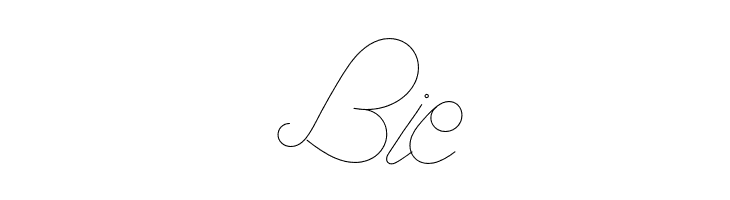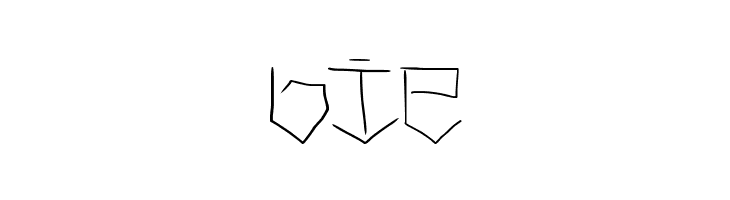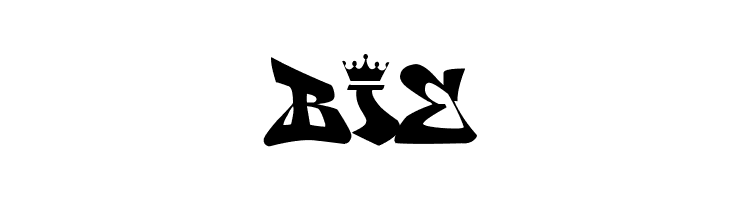
A delicate, flowing script font with elegant, interconnected strokes.
A textured, chalk-like font with a casual, hand-drawn style.
A graffiti-inspired font with angular, geometric shapes and a bold, urban style.
A bold, regal font with angular edges and crown accents.
A bold, graffiti-inspired font with angular, edgy letterforms.
A modern, clean sans-serif font with geometric shapes and uniform strokes.
A bold, playful font inspired by school bus signage with a geometric, rounded style.
A display font using iconic musician imagery for each character.
Photo-collage display font with reggae music iconography.
A bold, geometric font with a digital, pixelated design.